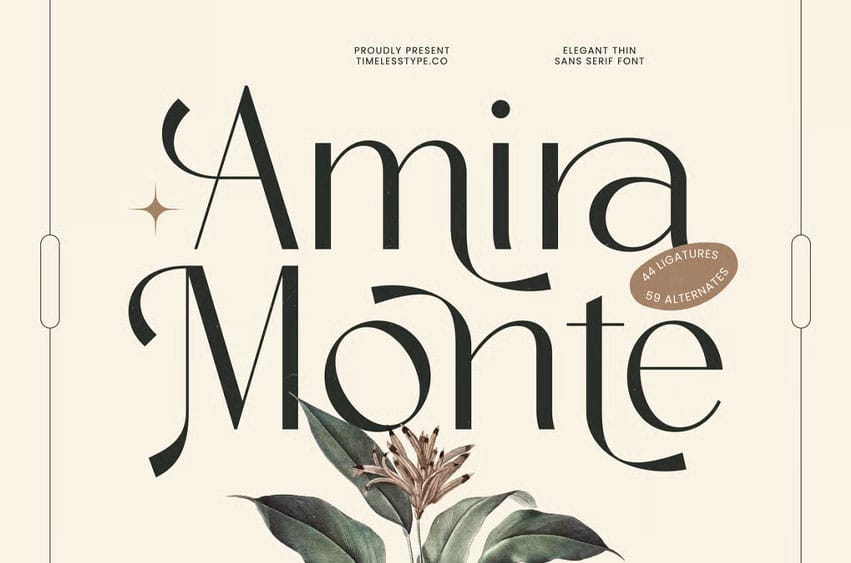
Amira Monte Font is an elegant thin sans-serif display font designed with refined curves, high-contrast strokes, and graceful ligature connections. Its sophisticated shapes bring a delicate yet modern look, perfect for premium branding, editorial layouts, magazines, minimalist product packaging, wedding invitations, luxe cosmetics, and artistic visual identities.
With 44 ligatures and 59 alternates, Amira Monte offers exceptional versatility—allowing you to create expressive typography with a sleek, contemporary aesthetic. Its thin lines and subtle decorative touches make it ideal for designers who value refinement, elegance, and stylistic detail.